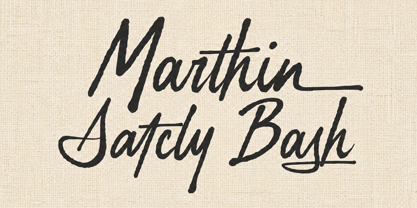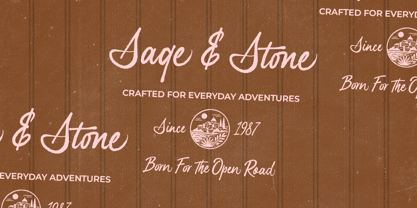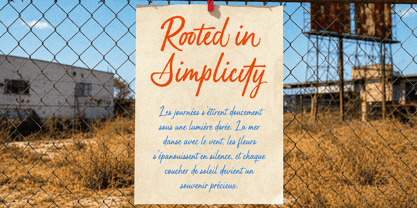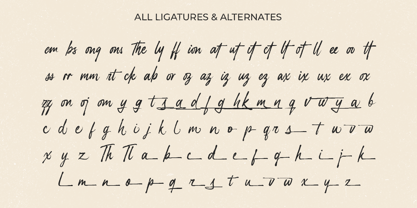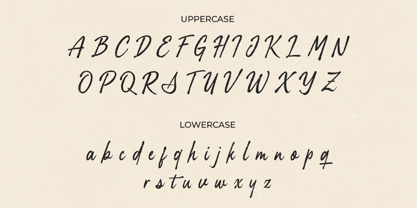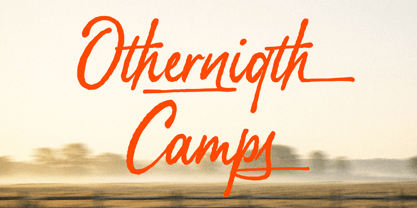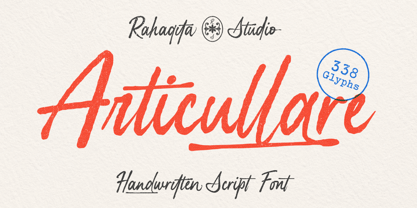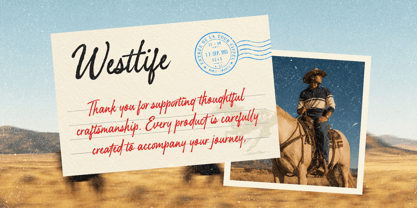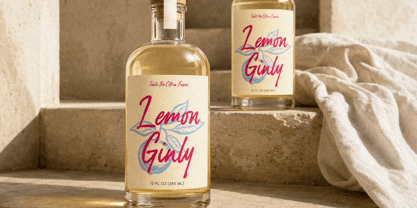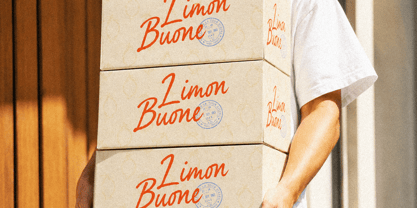
Articullare
by RahagitaType
The Articullare Font Family was designed by Setiadi Rahagita and published by RahagitaType. Articullare contains 1 styles. More about this family
Meet Articullare — a handwritten script that captures the beauty of ink meeting paper, unfiltered and full of character. Every curve carries the warmth of a real signature, while every connecting stroke flows with confident, editorial polish. This is a font built for brands that don't want to whisper — they want to be remembered.
With its bold weight, generous swashes, and 338 glyphs including ligatures and stylistic alternates, Articullare balances raw authenticity with refined craftsmanship. It's playful enough to feel personal, yet structured enough to stay legible across sizes — making it as comfortable in a headline as it is in a delicate subtitle.
Articullare shines across logos, branding, packaging, wedding invitations, social media graphics, posters, magazine spreads, product labels, quotes, business cards, and websites — a natural fit for luxury and lifestyle brands seeking timeless, artisanal appeal.
Give your story a voice that feels handwritten, heartfelt, and unforgettable — let Articullare tell it.